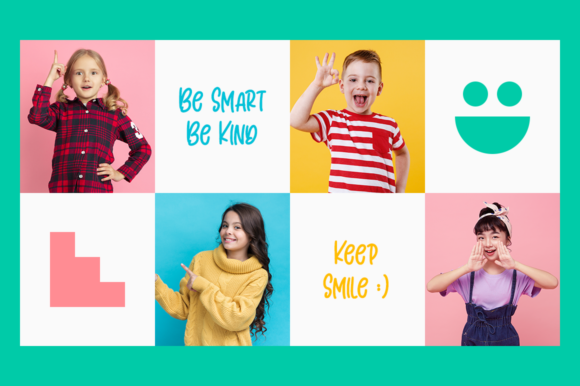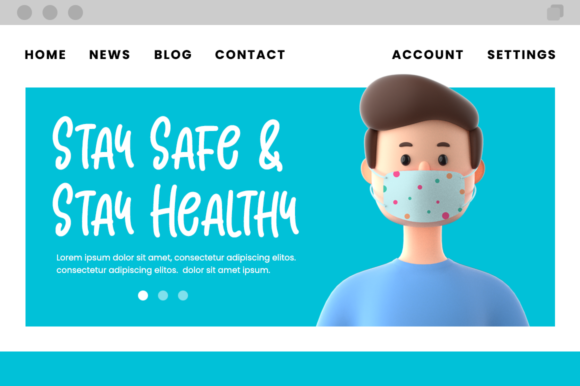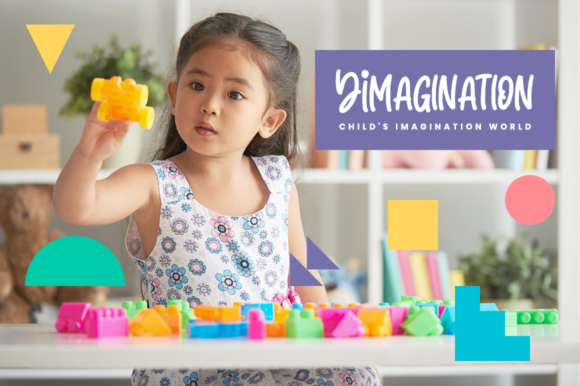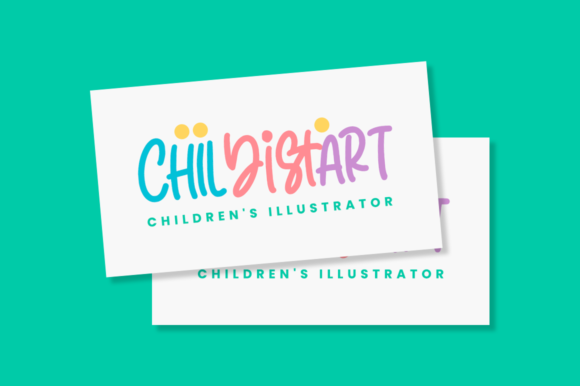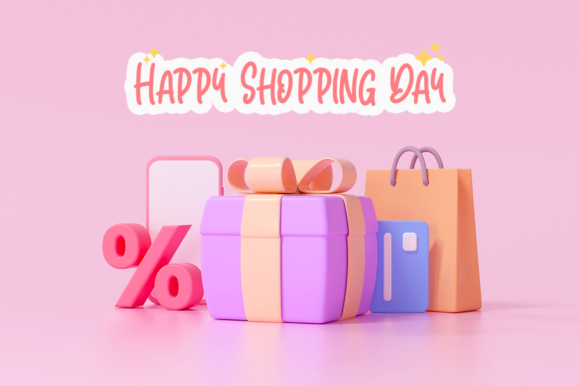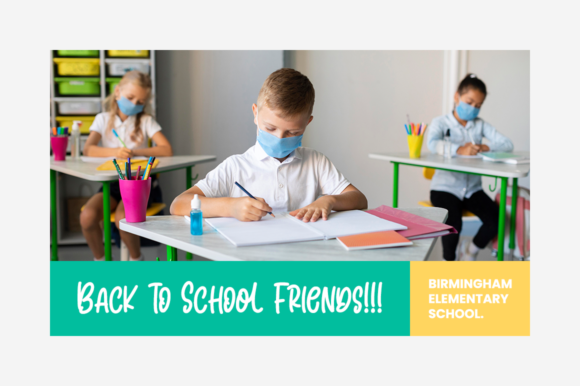
Introduction to Childstar Font
Have you ever found yourself staring at a blank canvas, waiting for the perfect spark to ignite your creative project? For designers, this moment is all too familiar. But what if that spark was a font that exuded warmth and playfulness, inviting your audience to relax and have fun? Enter the Childstar Font, a delightful display font that’s sure to bring a smile to your face.
As a valuable addition to any designer’s toolkit, the Childstar Font is a game-changer for those seeking a high-quality, one-of-a-kind look for their creative projects. With its transparent background and free download option, this font is an accessible design resource that’s perfect for designers looking to add a quirky touch to their work.
Whether you’re designing a social media campaign, a children’s book, or a website, the Childstar Font is the perfect companion for any project that requires a relaxed, casual vibe. So why settle for a generic font when you can have a font that’s as fun and charming as a child’s smile?
Key Features of Childstar Font
- High-quality design with a playful and whimsical touch, making it perfect for creative projects.
- Features a unique, hand-drawn aesthetic that adds a touch of personality to any design project.
- Perfect for use in children’s book illustrations, educational materials, and other projects that require a youthful and engaging tone.
Honest Review: Childstar Font
I recently came across the Childstar Font and was excited to dive in and see what it had to offer. As a designer, I’m always on the lookout for high-quality fonts that can elevate my creative projects to the next level.
Here are some of the things that I think work well with the Childstar Font:
- ✨ Unique and creative design: The font has a fun and playful feel to it, making it perfect for projects that need a bit of whimsy.
- ✨ Transparent background: This makes it easy to use the font on any background without worrying about it getting lost.
However, I did encounter some limitations with the font:
- ⚠️ Limited font family: While the Childstar Font itself is great, the family is quite small, which can be limiting for more extensive projects.
- ⚠️ Not ideal for formal projects: The font’s playful design may not be suitable for more formal or professional projects.
Overall, I think the Childstar Font is a great design resource for anyone looking for a fun and creative font. It’s free to download, making it an excellent option for personal or commercial projects. However, it may not be the best choice for every project, so be sure to consider your specific needs before using it.
Childstar Font is a high-quality, free download design resource that can elevate any creative project. With its unique and playful style, it’s perfect for adding a touch of whimsy to your designs.
Childstar Font is perfect for use in children’s party invitations, nursery decor, and other projects that require a playful and whimsical touch. It’s also great for use in social media graphics and blog posts where you want to add a touch of personality to your content.